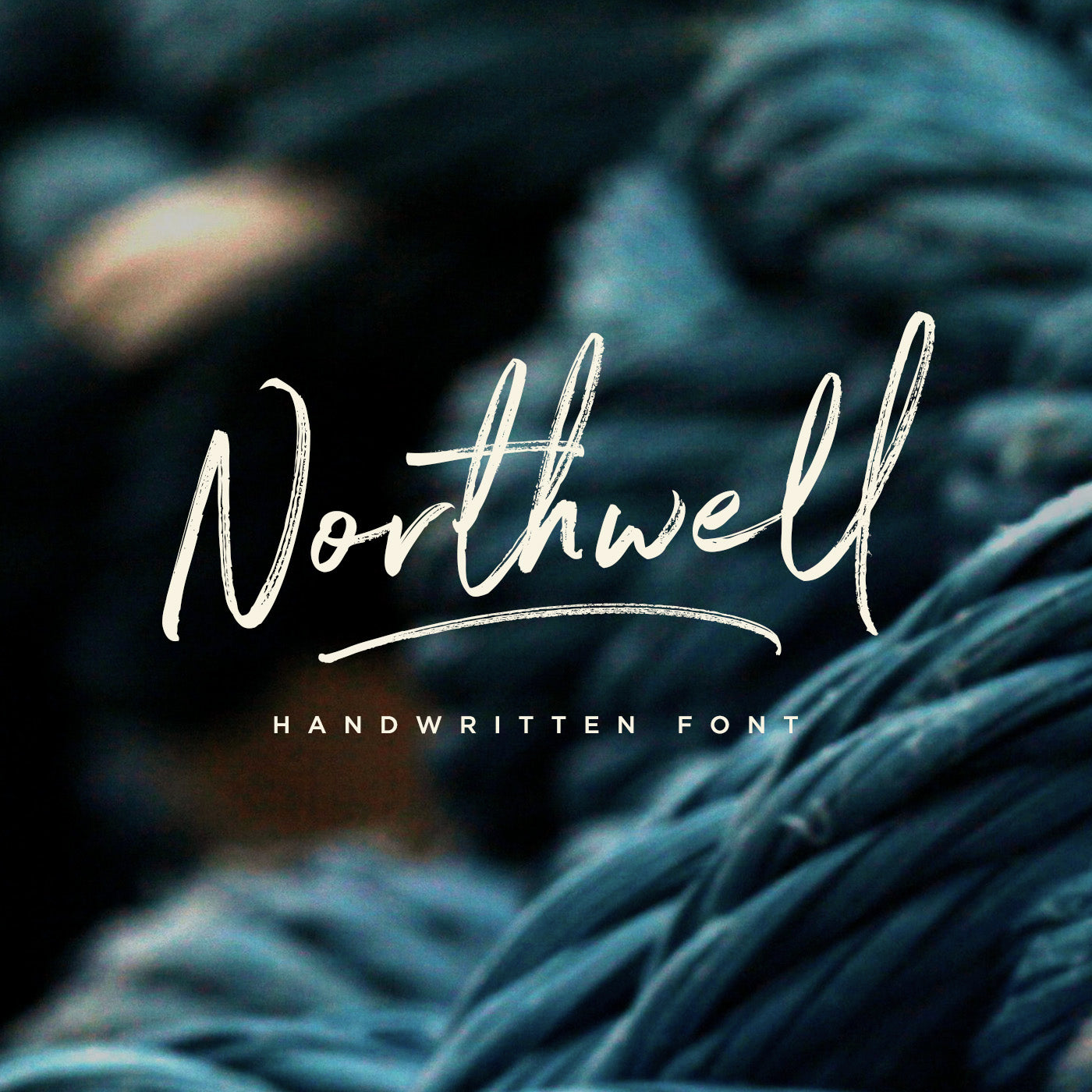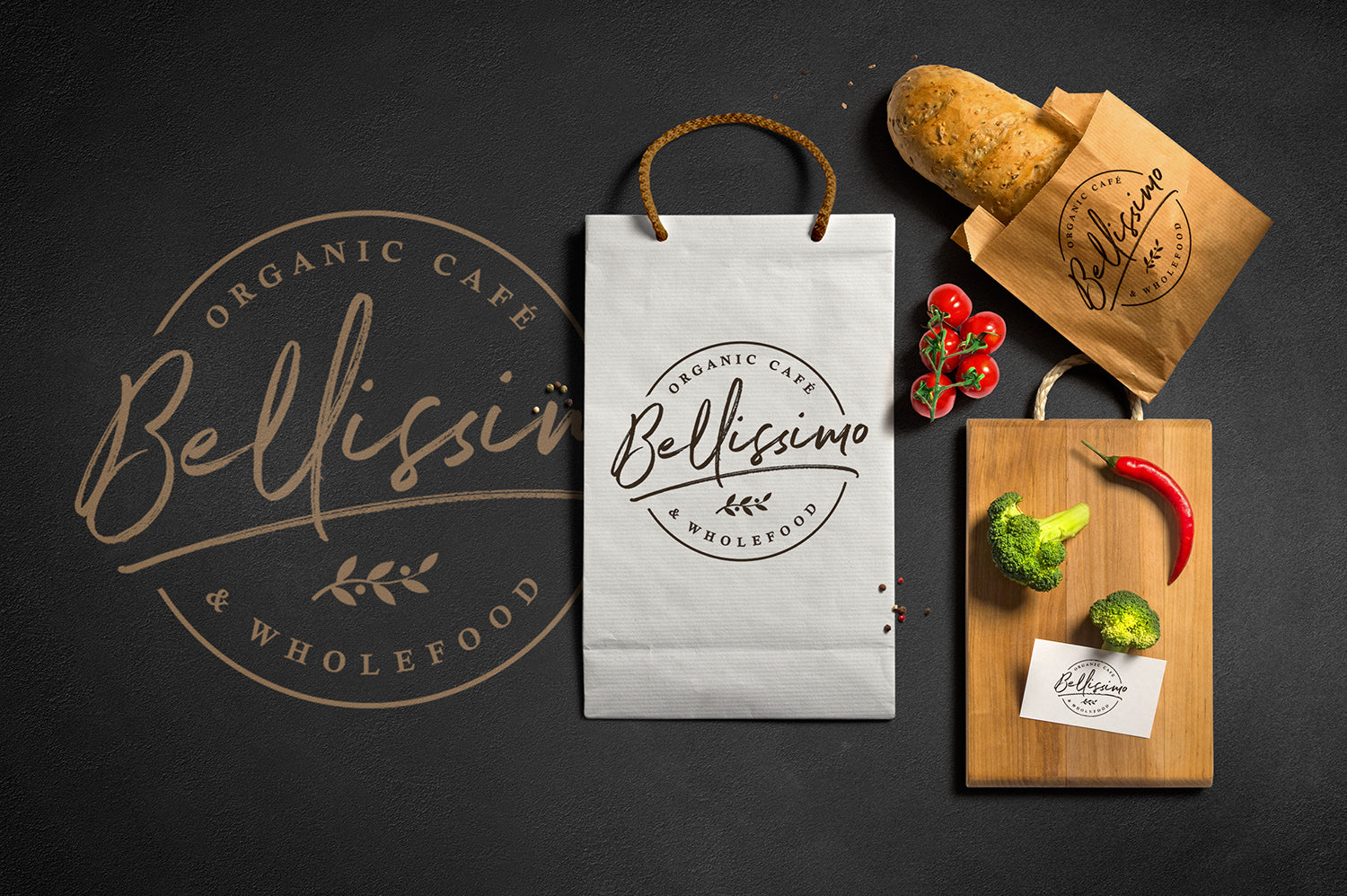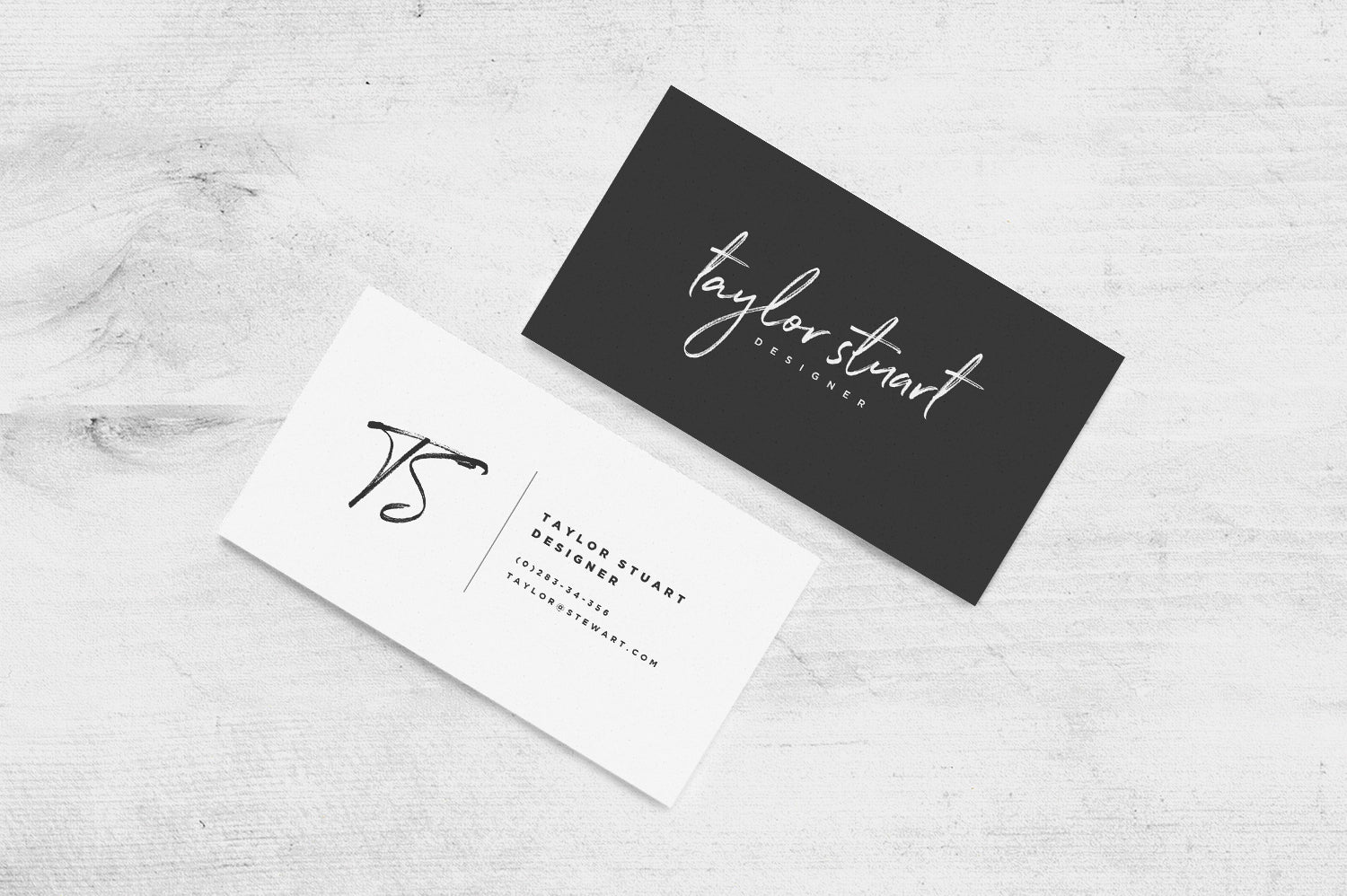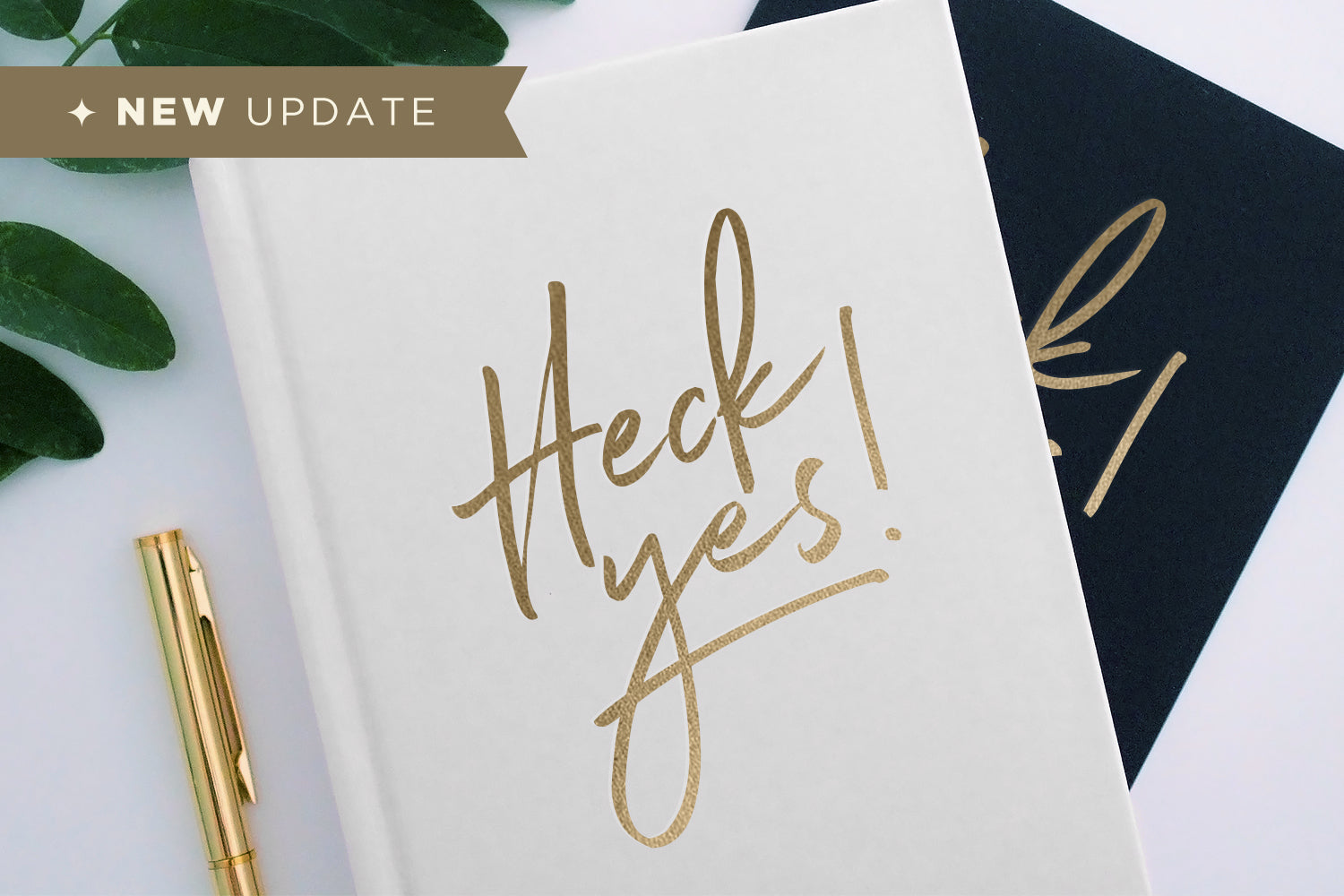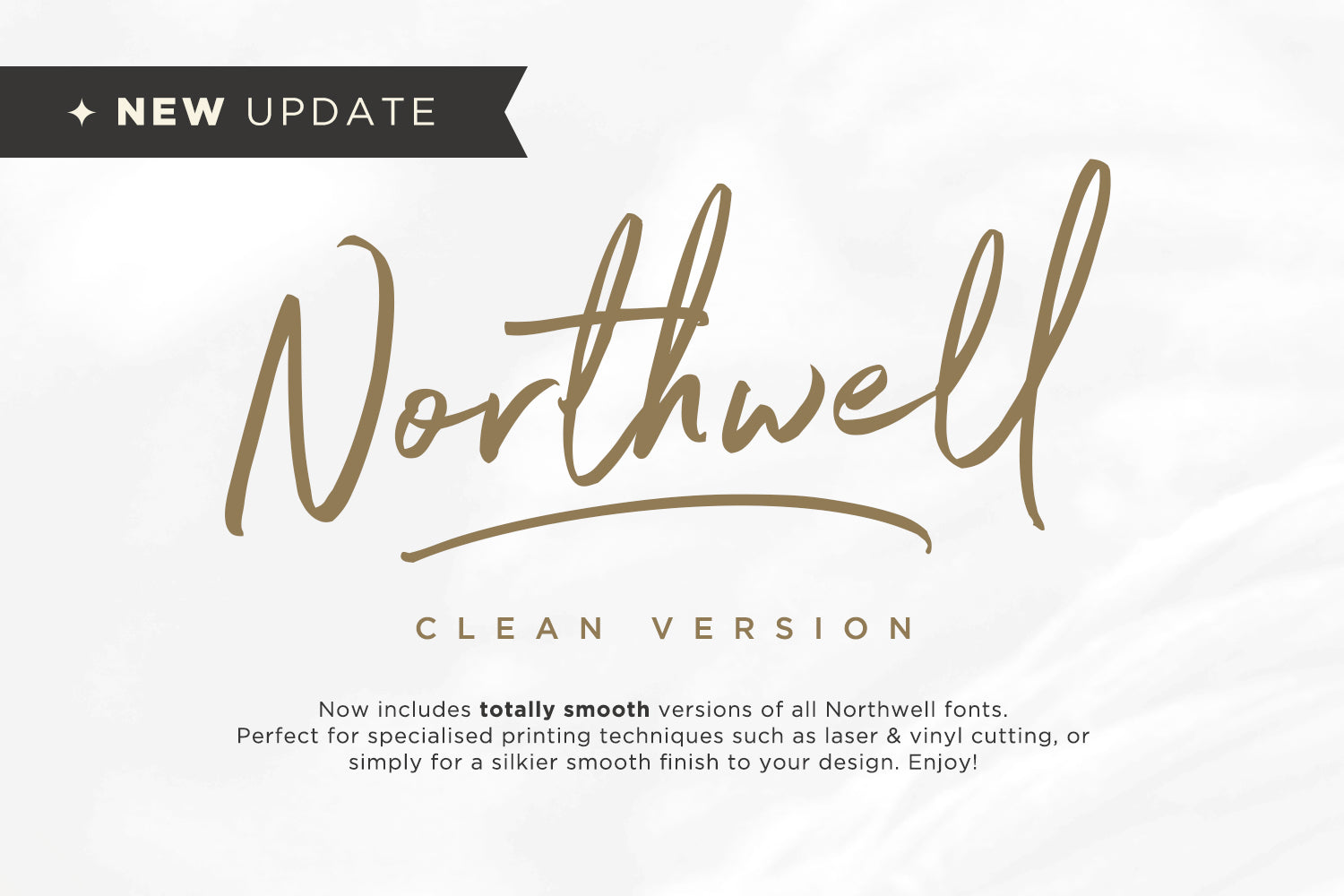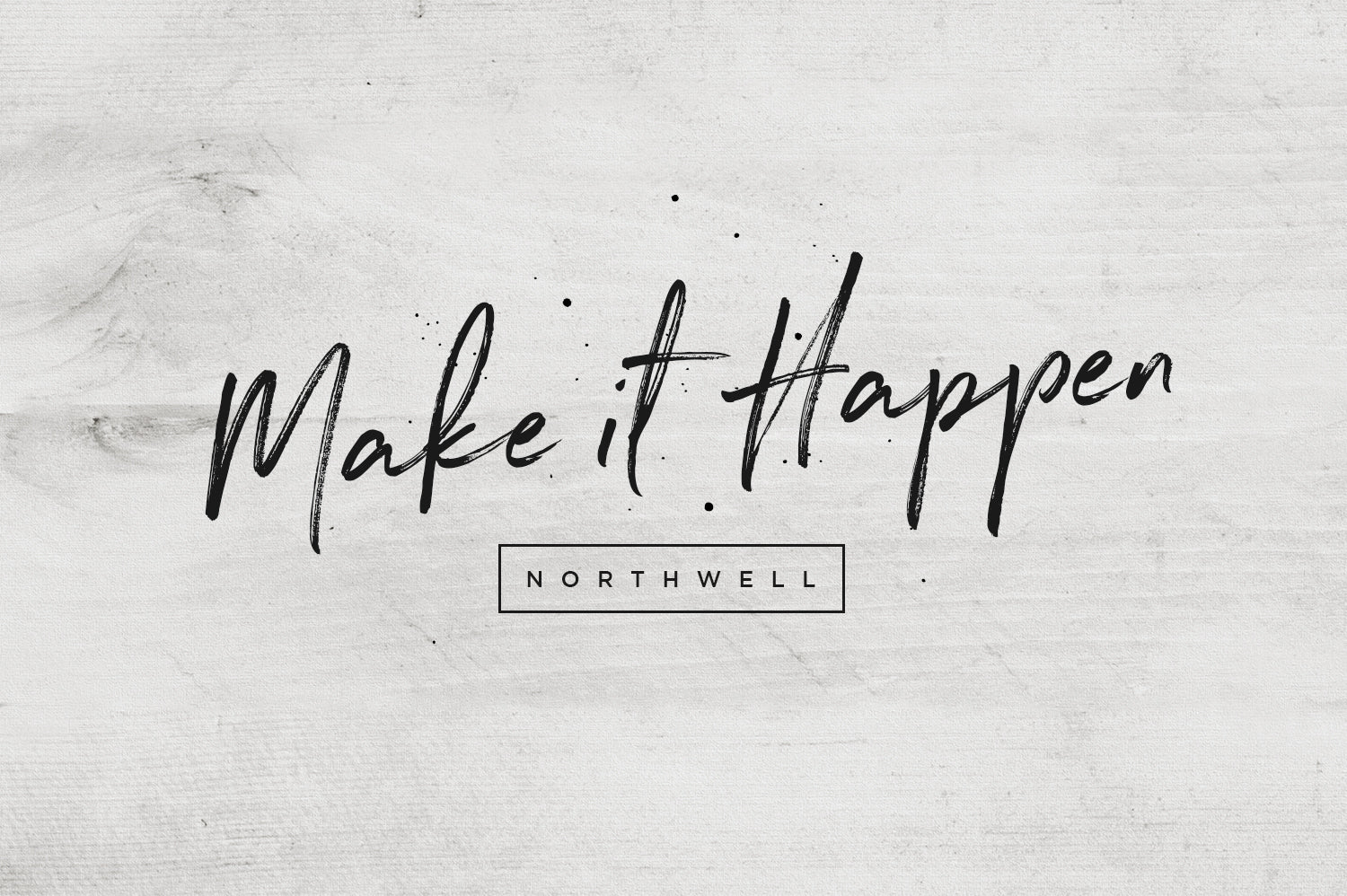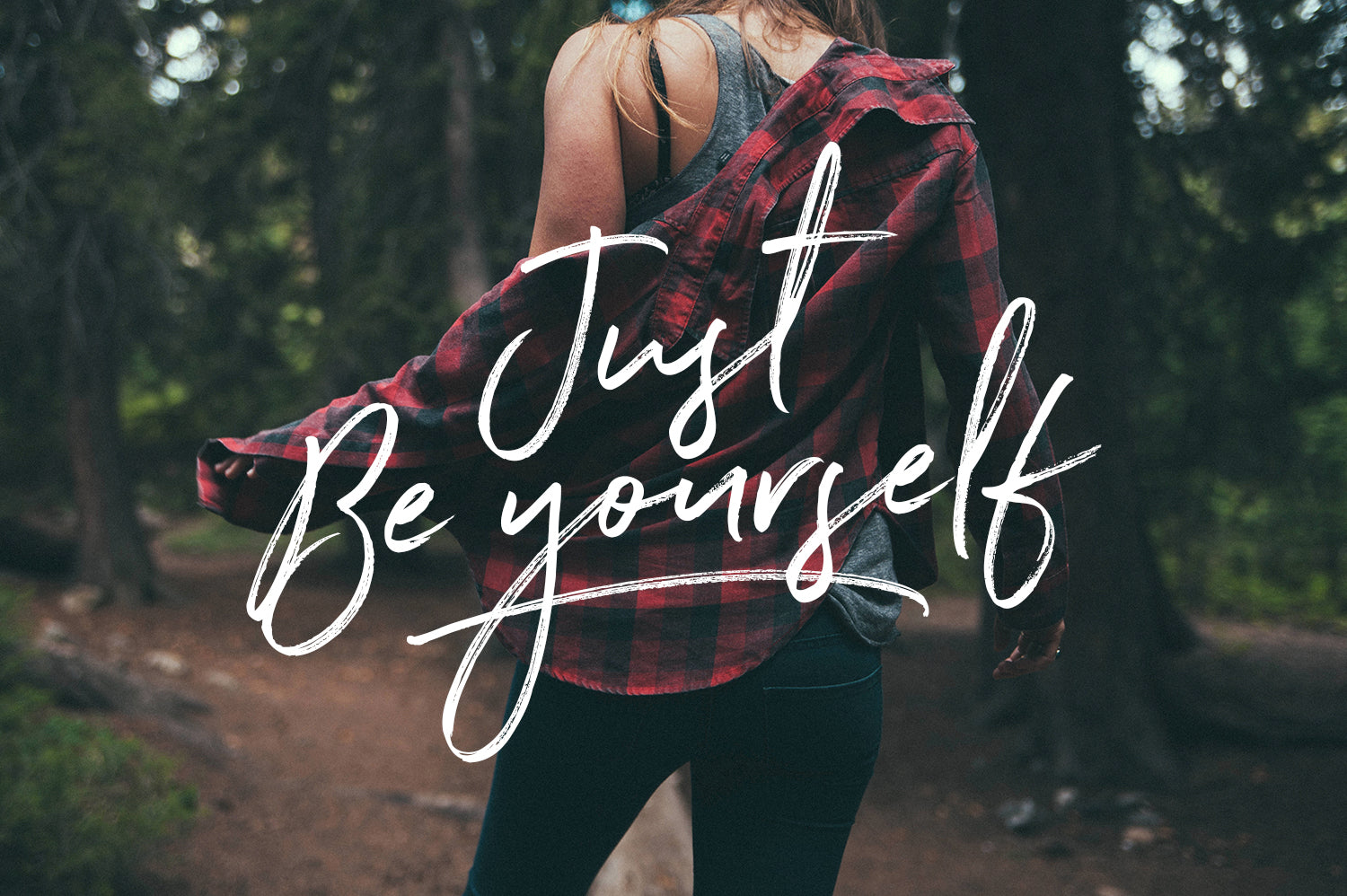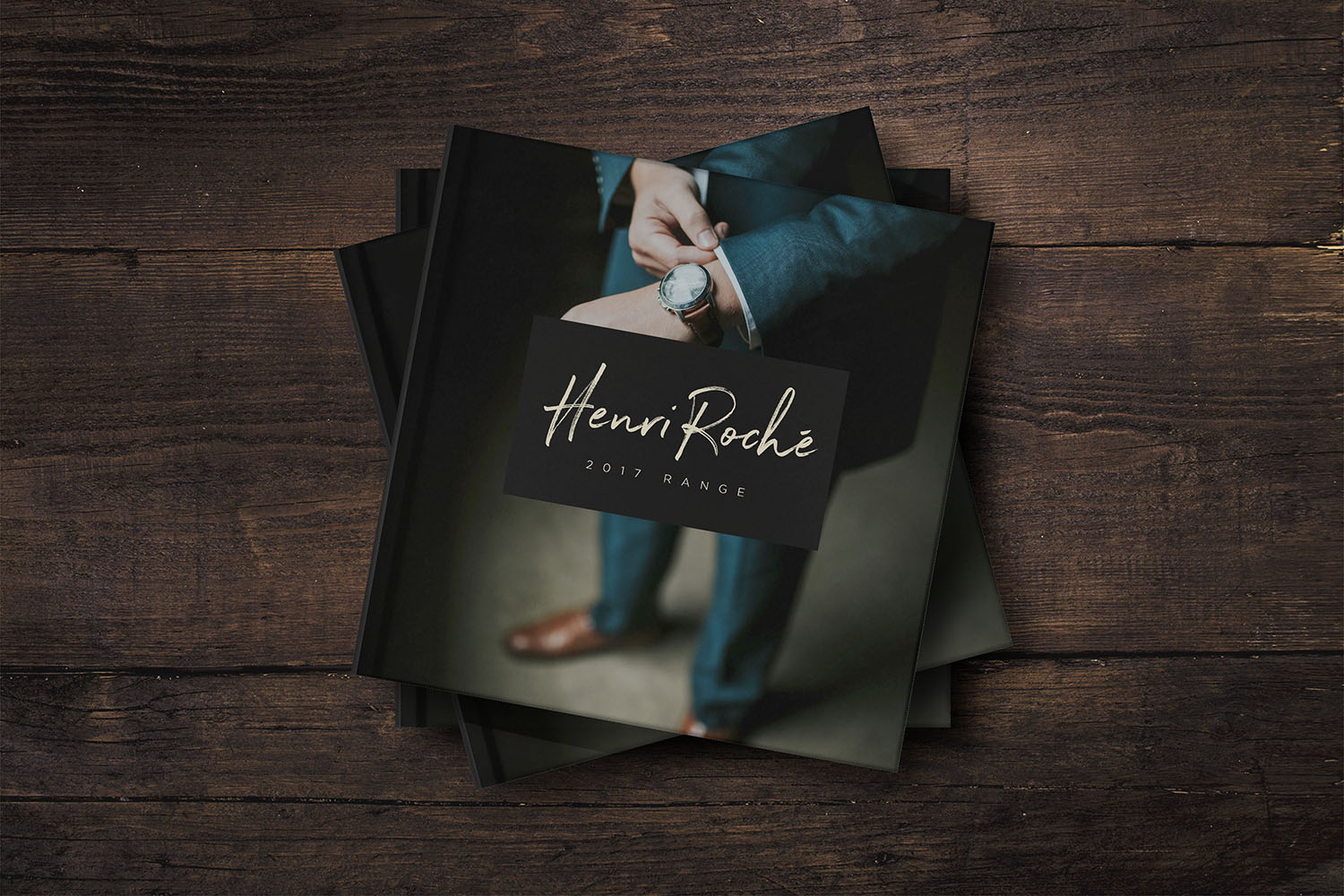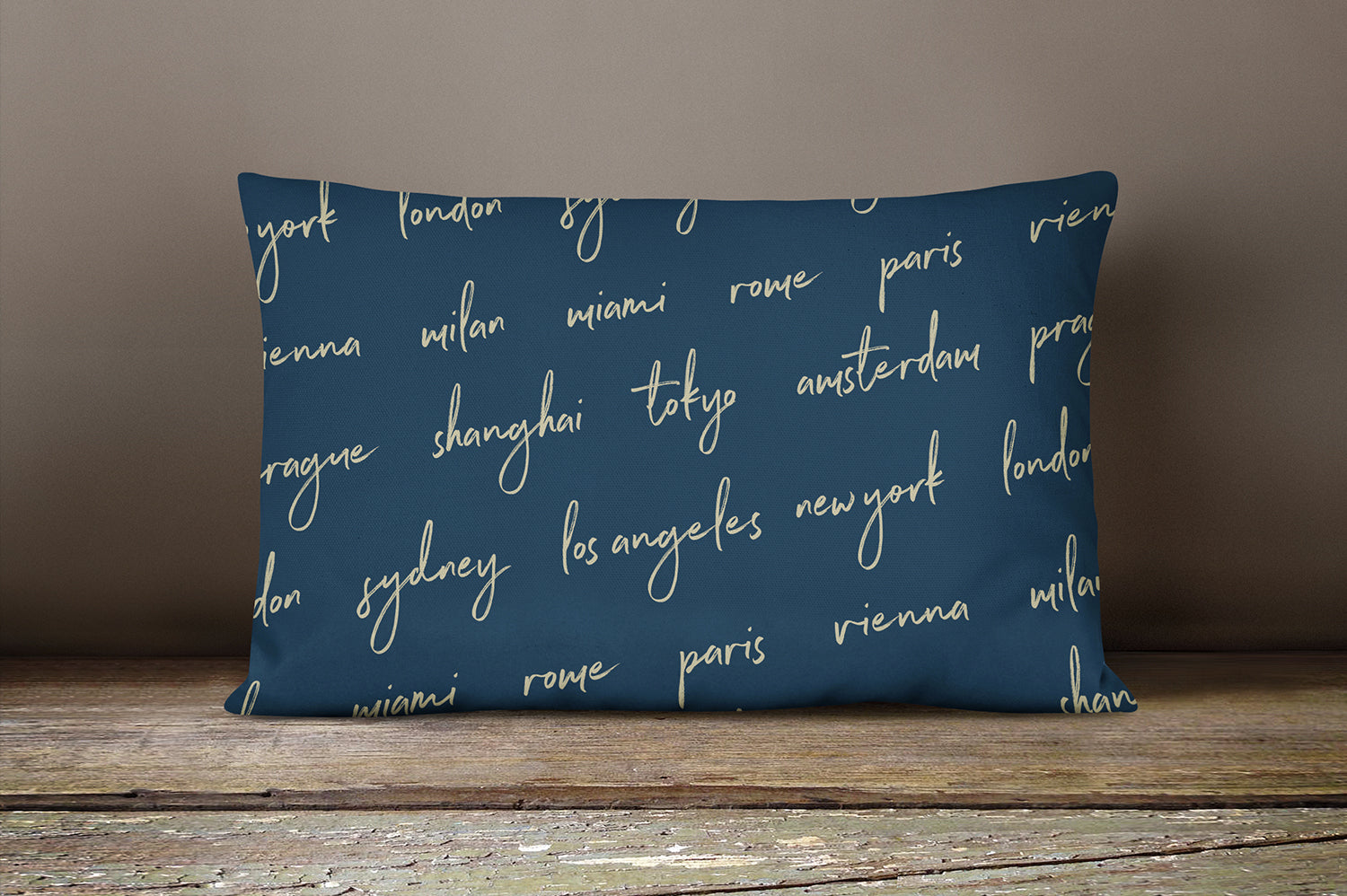
Northwell Font
Northwell Font is a rustic handwritten typeface featuring both a textured and a clean version, offering six font files including a primary script font, an alternate version, and hand-drawn swashes. It includes ligatures for improved letter flow and is compatible with software that supports OpenType features.